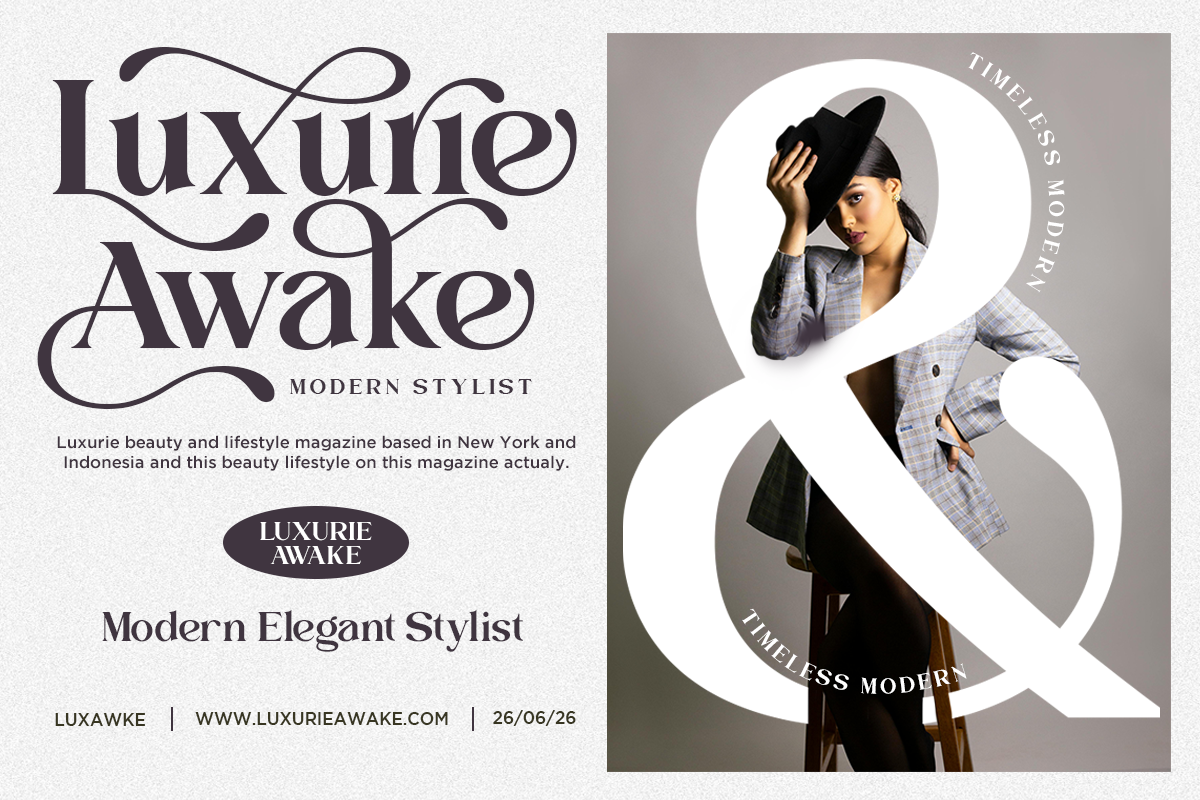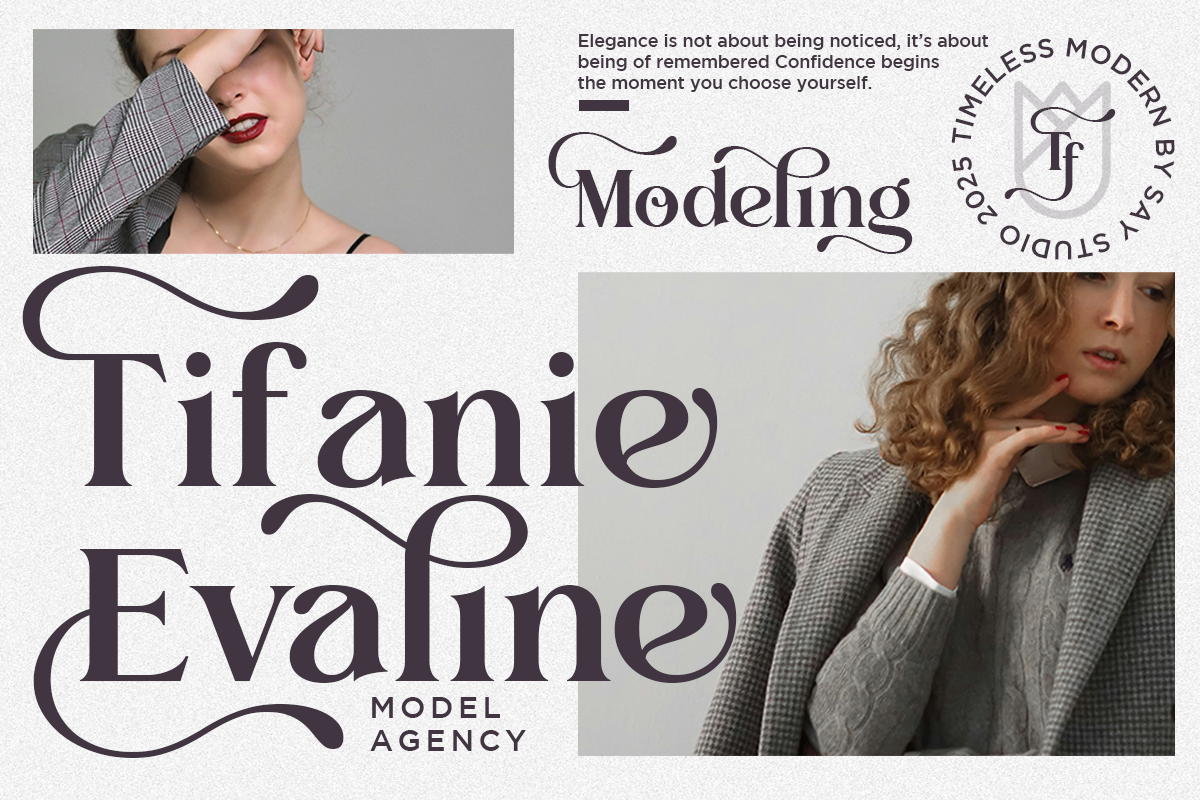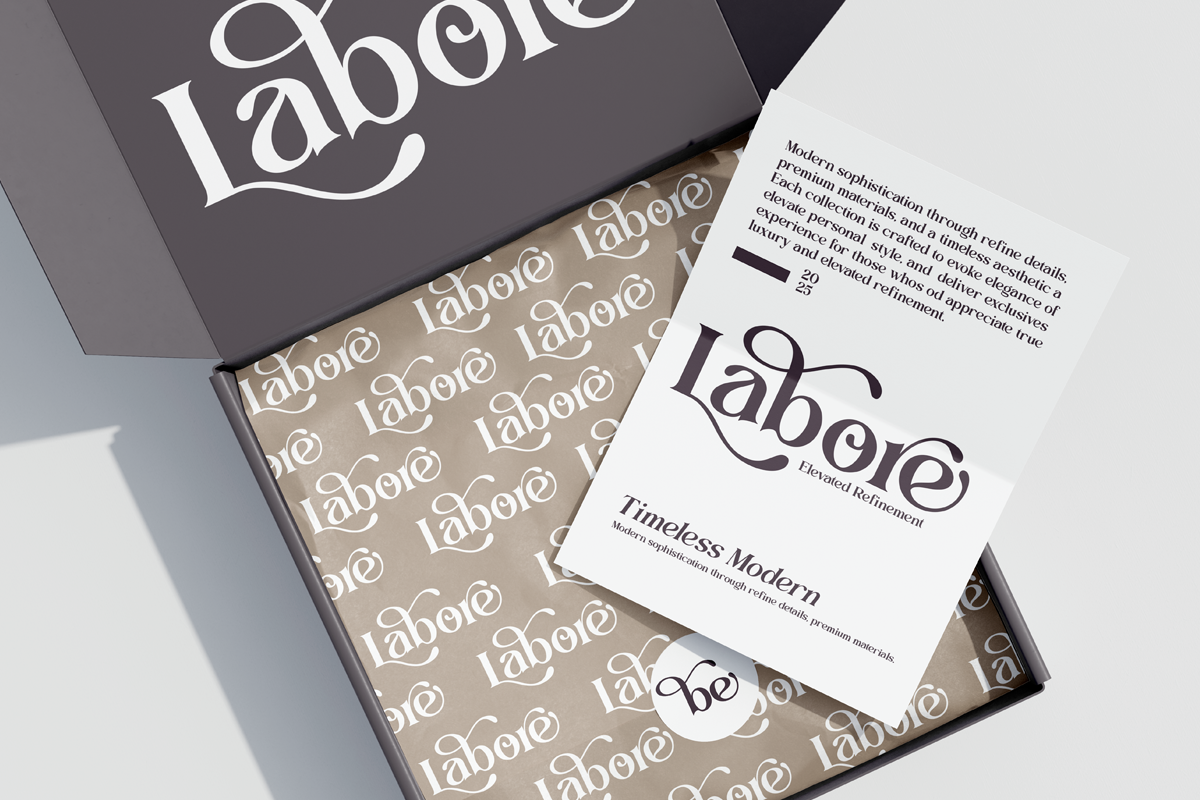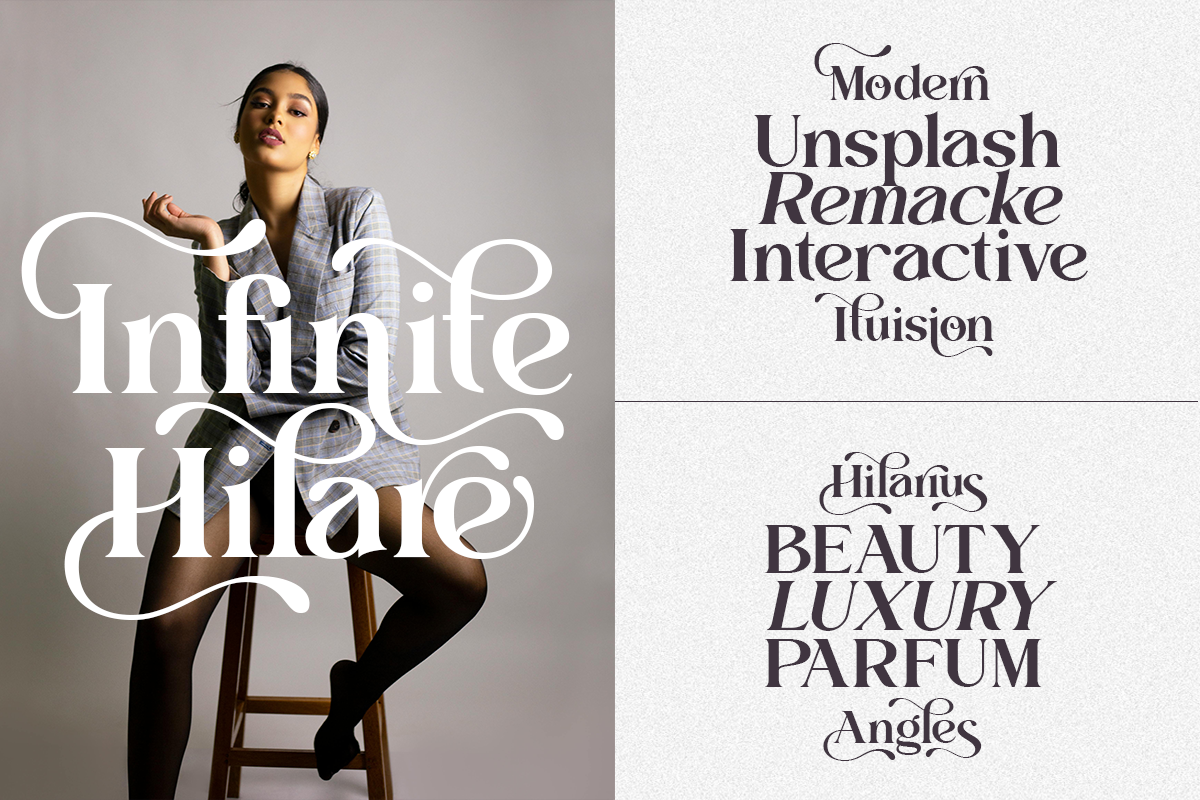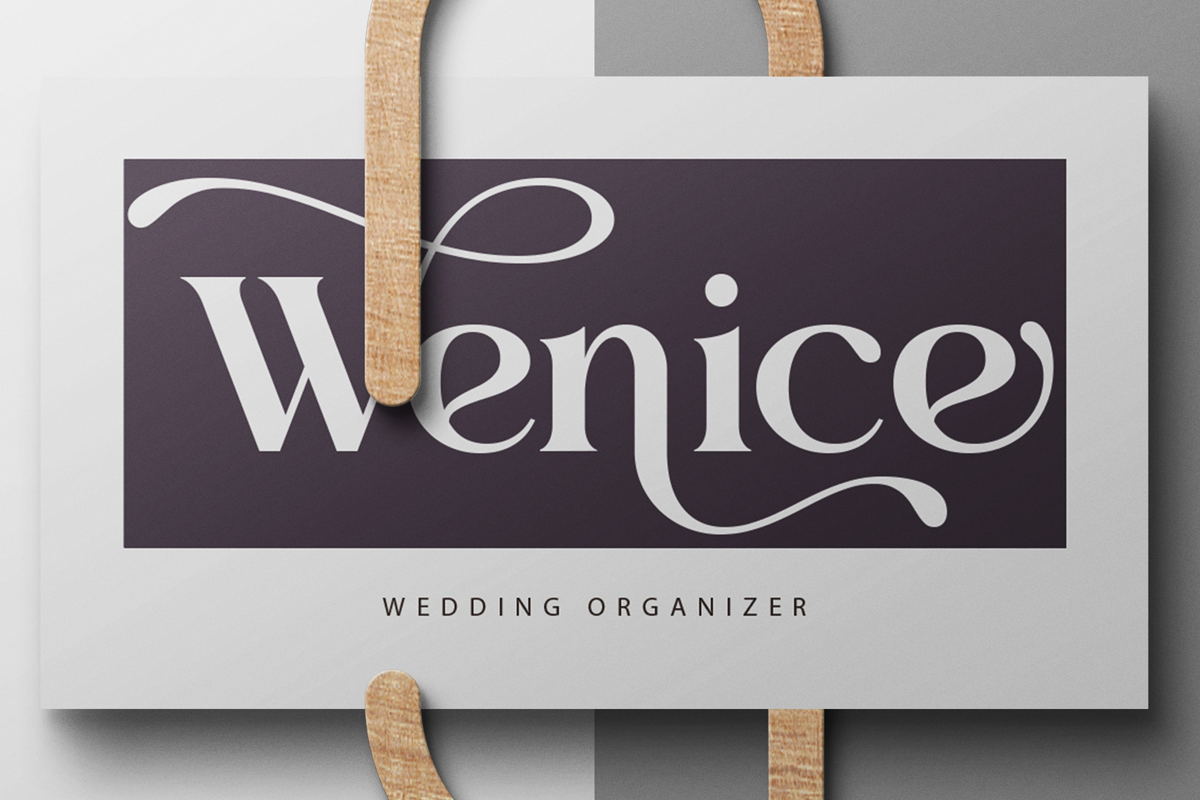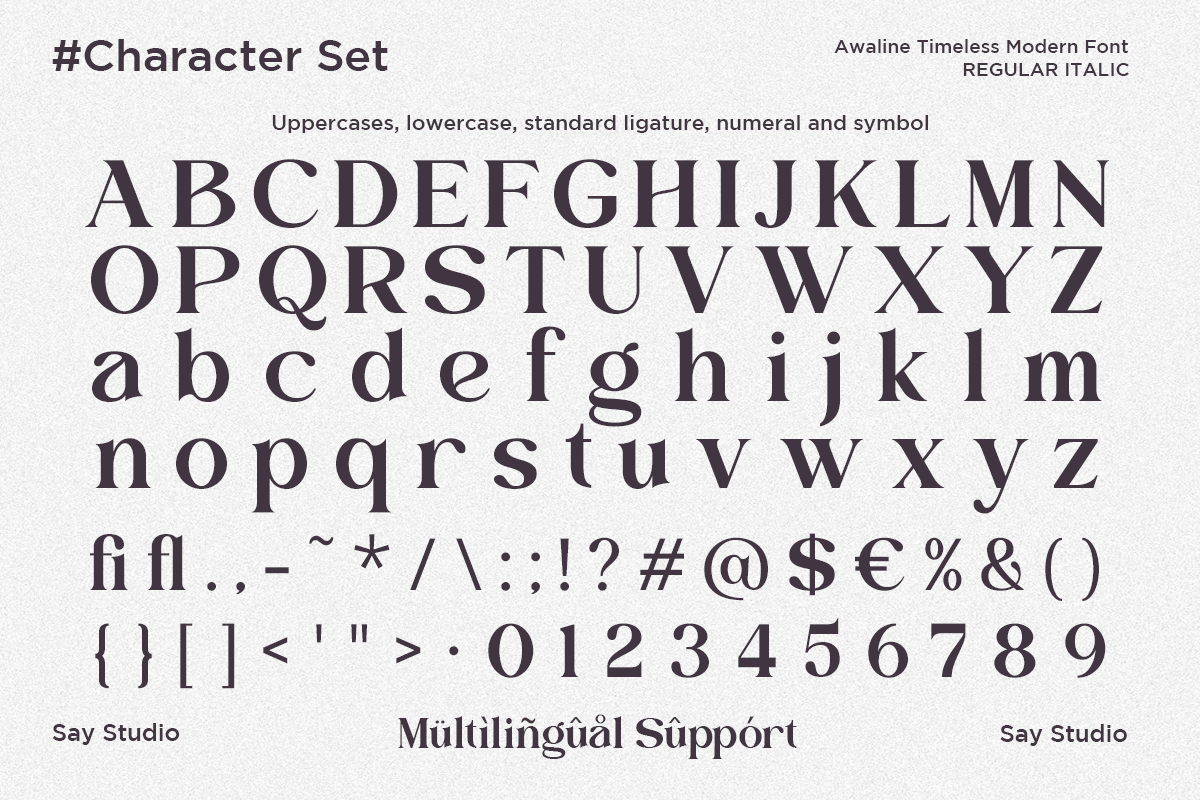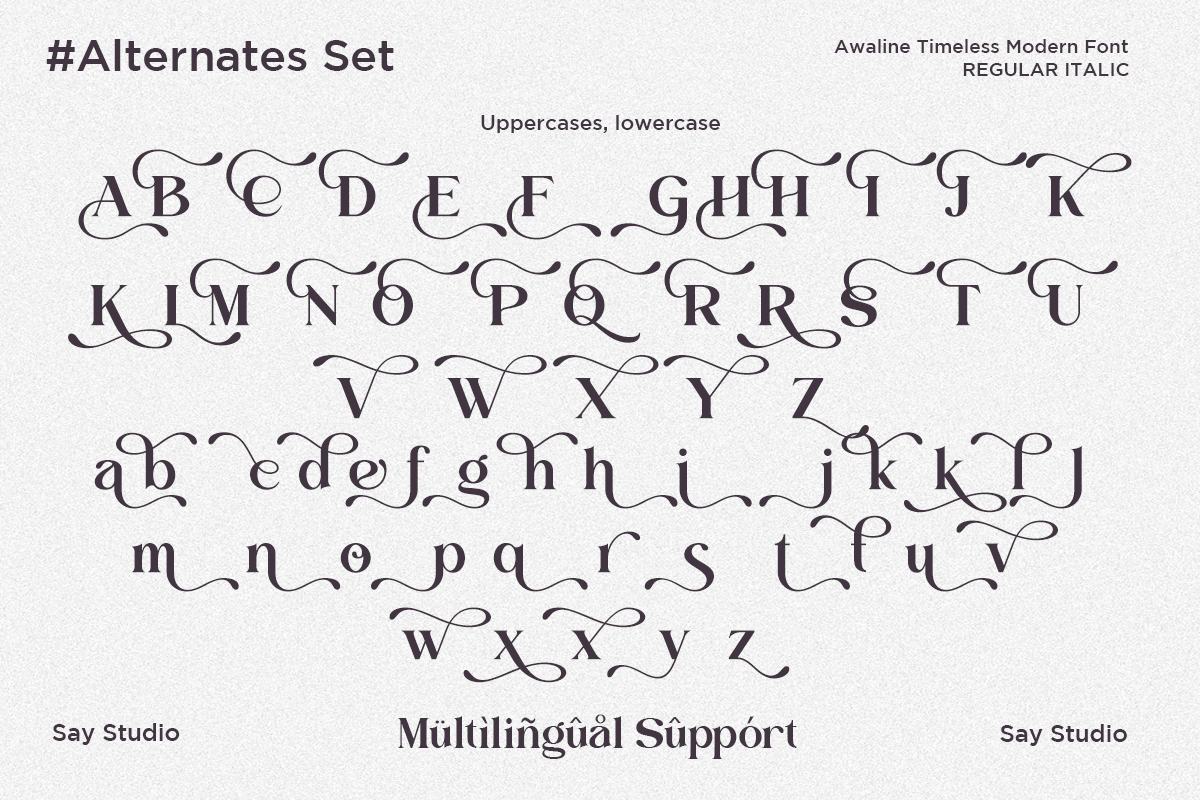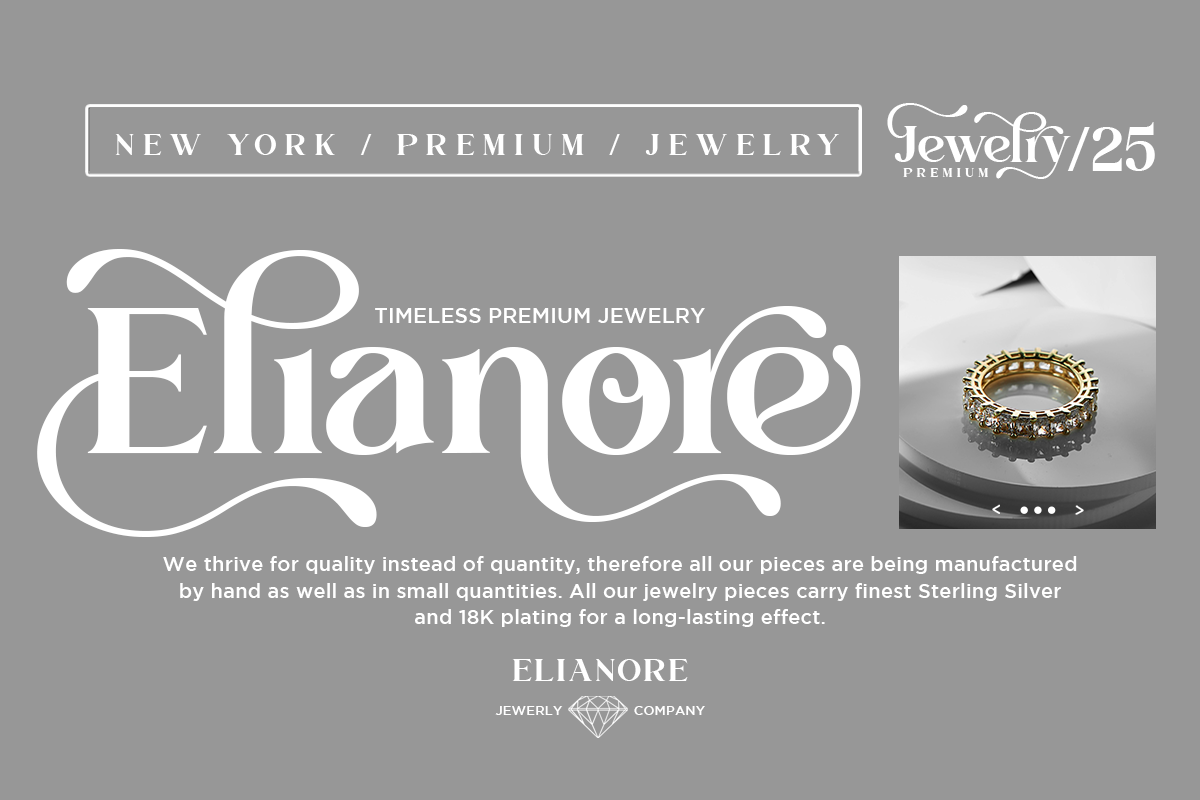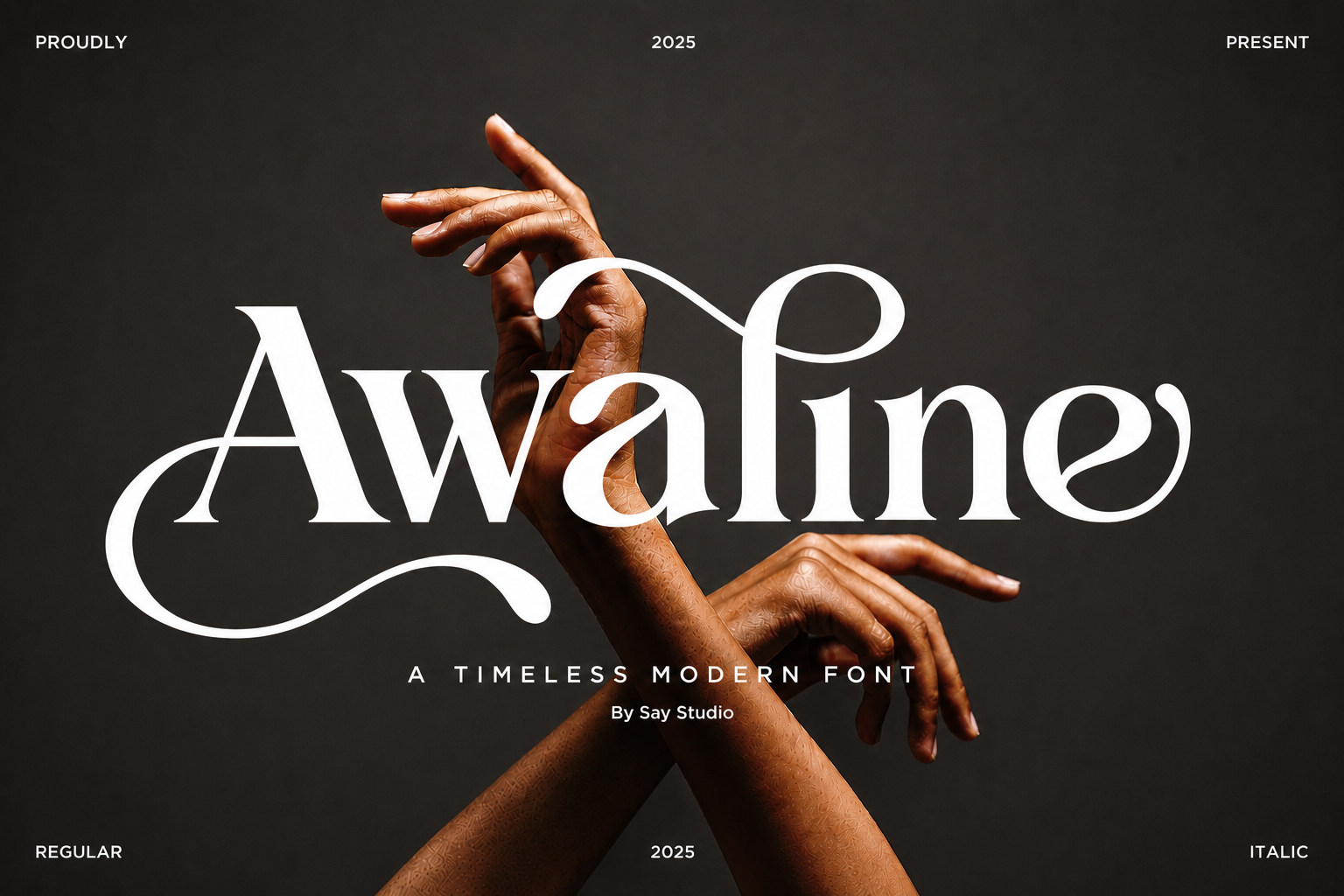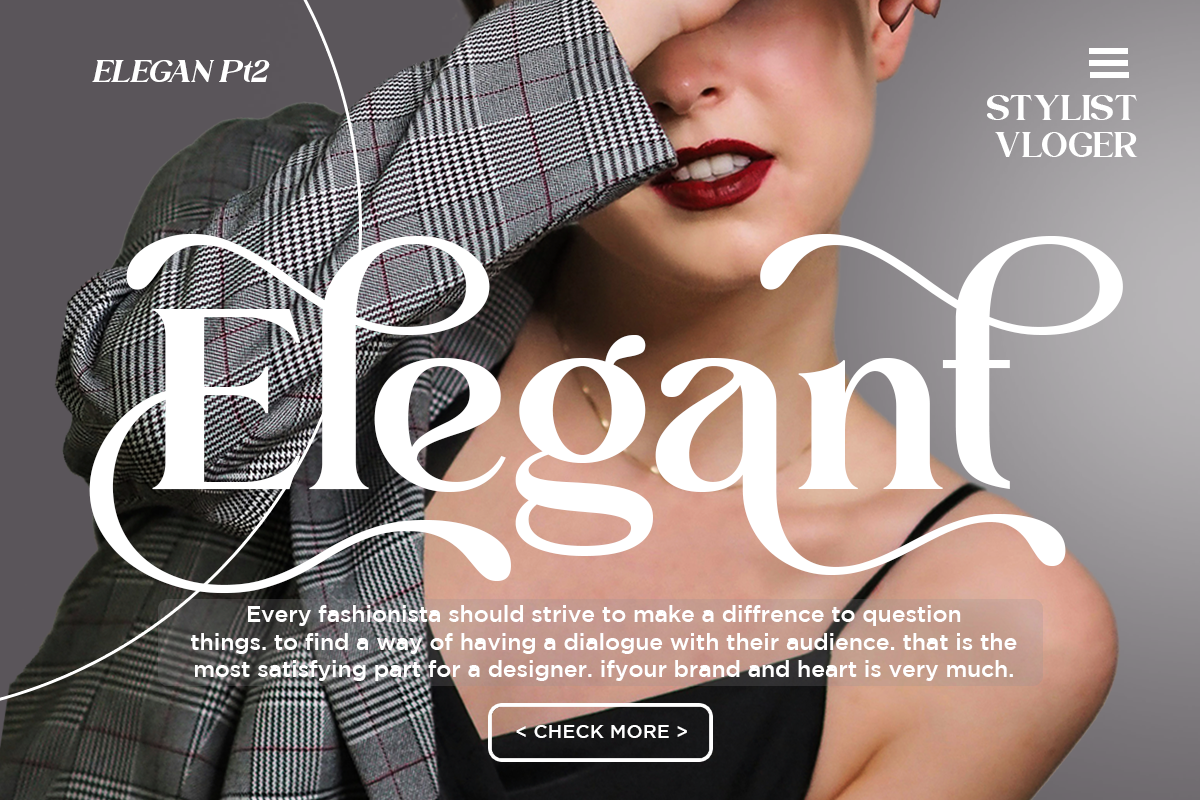
Luxury Wedding Serif Font - Awaline
Awaline is a luxury modern serif font that blends timeless elegance with contemporary sophistication. Featuring refined contrast, graceful swashes, and beautifully crafted letterforms, Awaline is designed to create a premium visual identity for high-end creative projects.
Perfect for fashion branding, luxury logos, editorial layouts, wedding invitations, jewelry collections, cosmetic packaging, beauty campaigns, boutique identities, magazine covers, social media content, and premium marketing materials. Awaline delivers a refined aesthetic that feels both classic and modern, helping every design leave a memorable impression.
Whether you're creating an upscale brand identity or designing sophisticated promotional materials, Awaline offers exceptional versatility while maintaining its distinctive luxury character. Its elegant details make it ideal for designers seeking typography that communicates confidence, beauty, and exclusivity.
Regular and Italic Style
Number, Symbol, and Punctuation
Multi Language Support